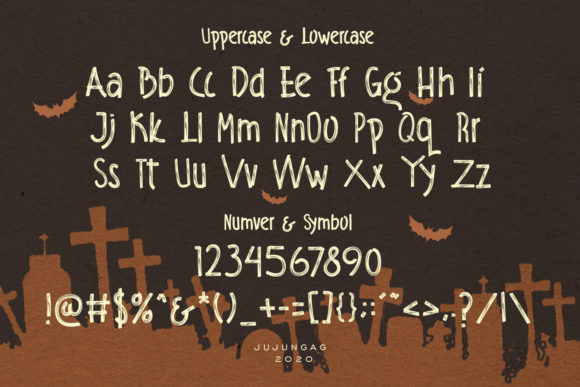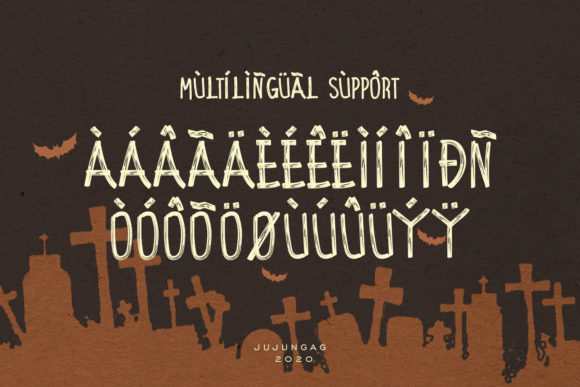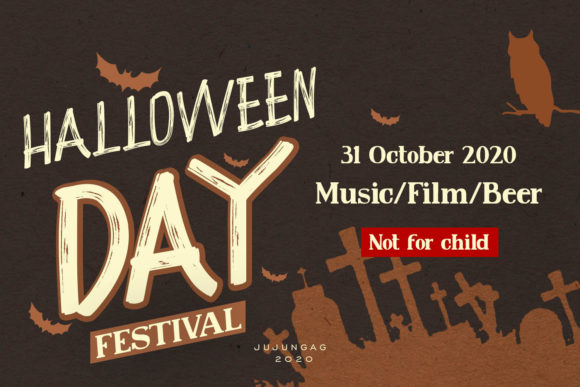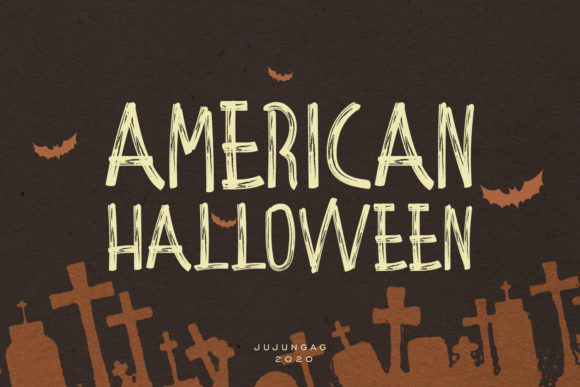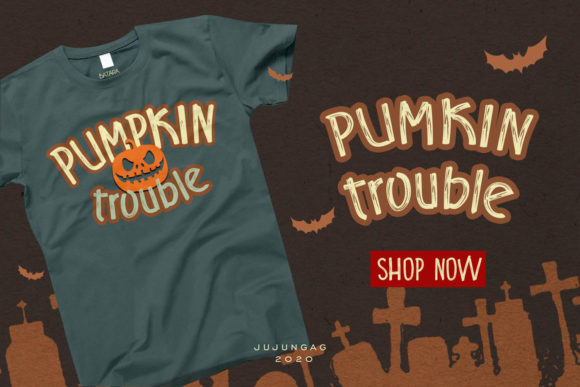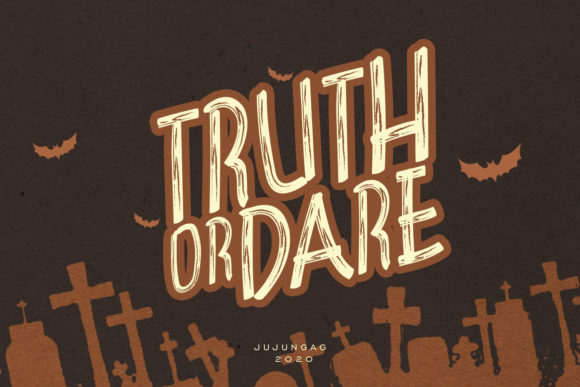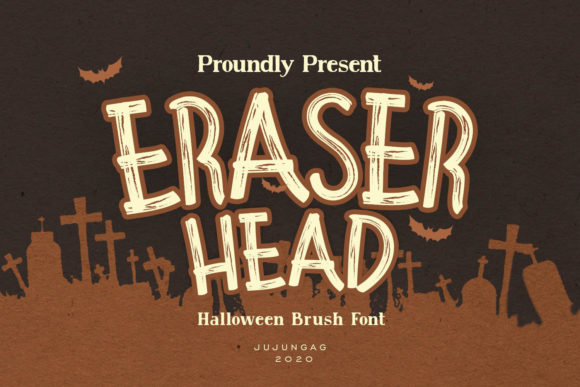
Eraser Head Font: The Ultimate Halloween Display Font for Designers and Crafters
As the spookiest time of the year approaches, designers and crafters are on the lookout for the perfect font to add a touch of Halloween magic to their creations. Look no further than Eraser Head Font, a halloween-themed display font that is sure to make your designs stand out. In this article, we’ll dive into the features and benefits of Eraser Head Font, and explore the many ways you can use it to create spook-tacular designs.
What is Eraser Head Font?
Eraser Head Font is a unique and eye-catching display font that has been carefully crafted with a brush style to give it a distinctive, hand-painted look. The font features bold, expressive letters with a playful, irregular texture that is reminiscent of traditional Halloween signage. Whether you’re designing a Halloween template, mockup, or t-shirt, Eraser Head Font is the perfect choice for adding a touch of seasonal flair.
Key Features of Eraser Head Font
- Halloween-themed design: Eraser Head Font is specifically designed for Halloween, making it the perfect choice for designers and crafters who want to create spooky and festive designs.
- Brush style: The font features a unique brush style that gives it a hand-painted, irregular texture that is perfect for adding a touch of whimsy to your designs.
- Display font: Eraser Head Font is a display font, making it perfect for use in headlines, titles, and other prominent design elements.
- Versatile: The font can be used for a wide range of design projects, from Halloween templates and mockups to t-shirts, quotes, and party invitations.
Uses for Eraser Head Font
Eraser Head Font is an incredibly versatile font that can be used for a wide range of design projects. Here are just a few ideas to get you started:
- Halloween Templates and Mockups: Use Eraser Head Font to create spooky and festive Halloween templates and mockups that are perfect for social media, blogs, or websites.
- Halloween T-Shirts: Add a touch of Halloween magic to your t-shirt designs with Eraser Head Font, perfect for crafters and designers who want to create unique and eye-catching apparel.
- Halloween Quotes: Use Eraser Head Font to create spooky and inspiring Halloween quotes that are perfect for social media, blogs, or websites.
- Halloween Party Invitations: Create spooky and festive Halloween party invitations with Eraser Head Font, perfect for designers and crafters who want to add a touch of seasonal flair to their designs.
- Logo Design and Typography: Use Eraser Head Font to create unique and eye-catching logos and typography designs that are perfect for businesses, websites, or social media.
Tips for Using Eraser Head Font
Here are a few tips for using Eraser Head Font in your designs:
- Use it sparingly: Eraser Head Font is a bold and expressive font, so use it sparingly to add emphasis and impact to your designs.
- Experiment with colors: The font looks great in a range of colors, so experiment with different hues and combinations to find the perfect look for your design.
- Pair it with other fonts: Eraser Head Font pairs well with a range of other fonts, so experiment with different combinations to find the perfect look for your design.
Eraser Head Font is a unique and eye-catching Halloween-themed display font that is perfect for designers and crafters who want to add a touch of seasonal flair to their creations. With its bold, expressive letters and playful, irregular texture, Eraser Head Font is sure to make your designs stand out. Whether you’re designing Halloween templates, t-shirts, quotes, or party invitations, Eraser Head Font is the perfect choice for adding a touch of Halloween magic to your designs.